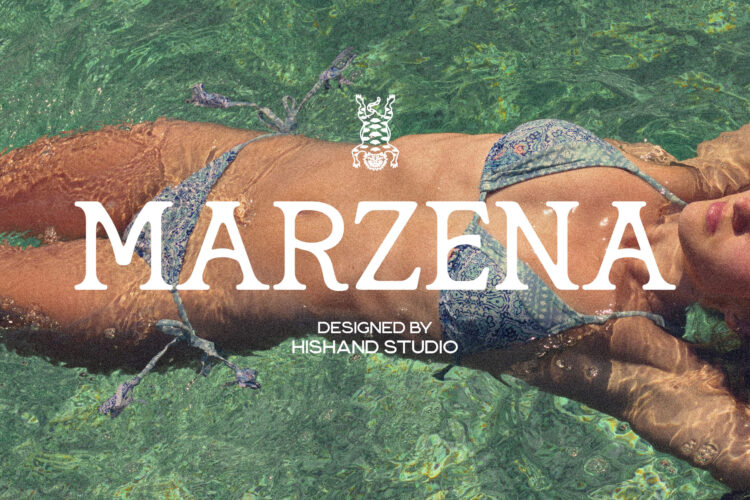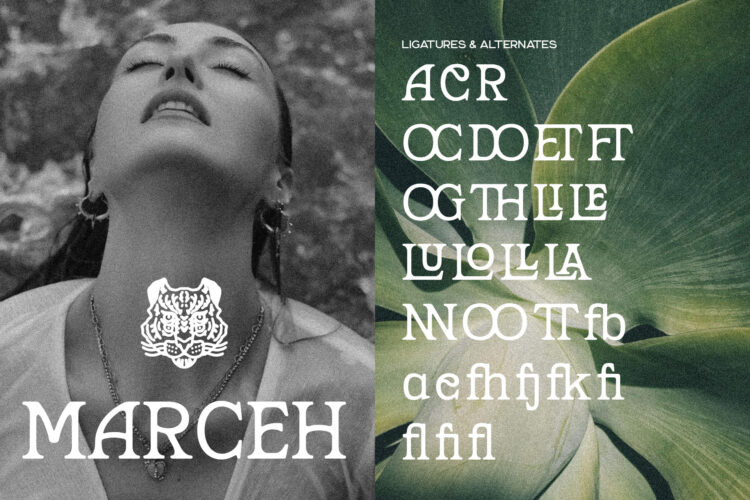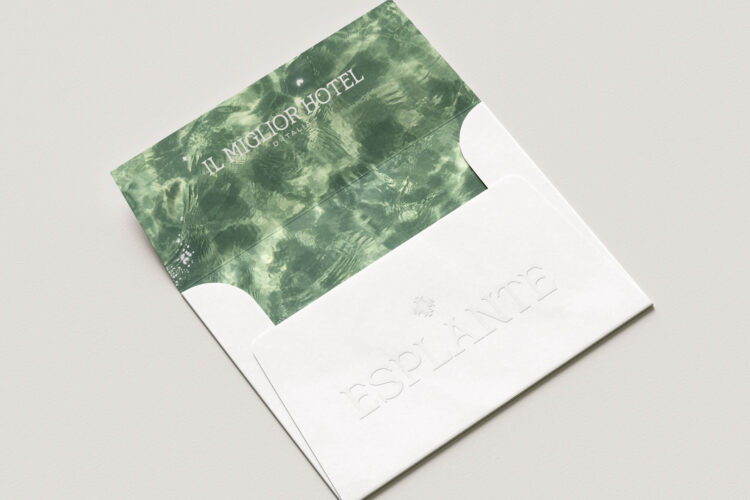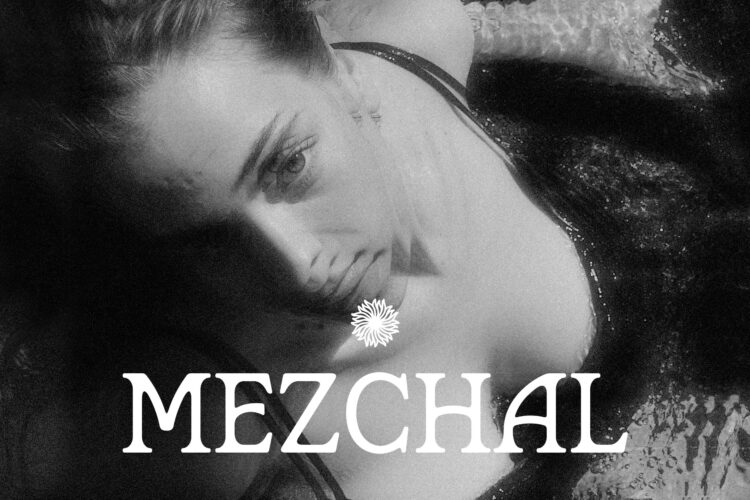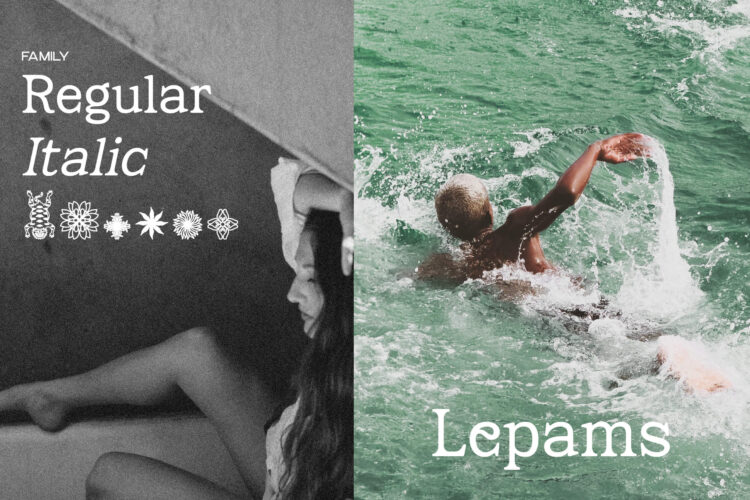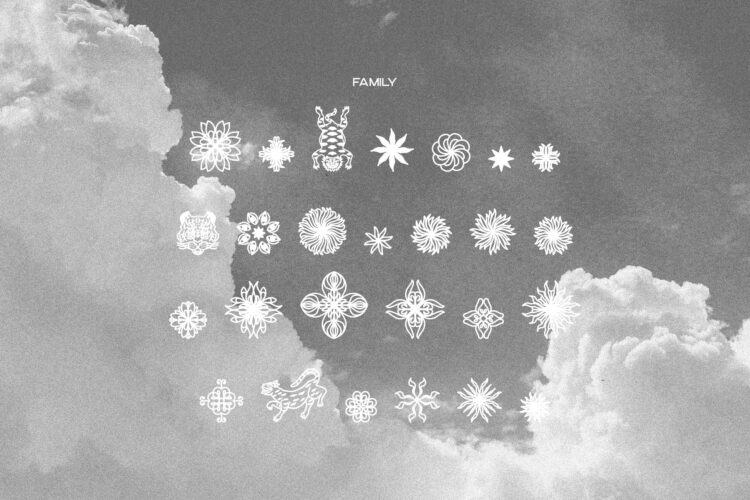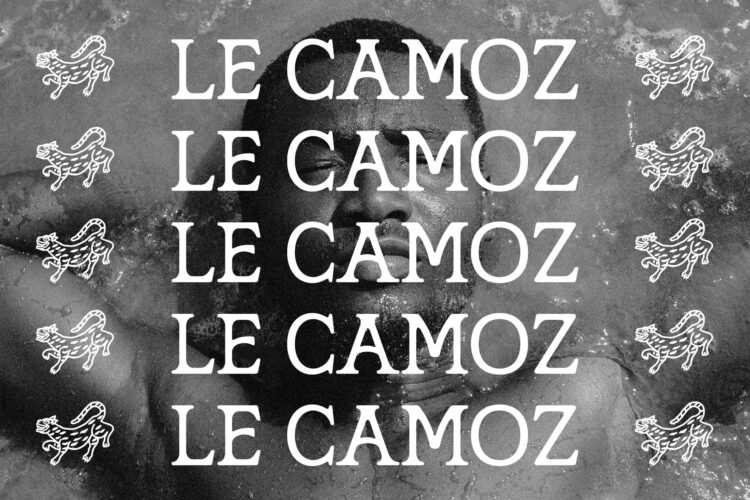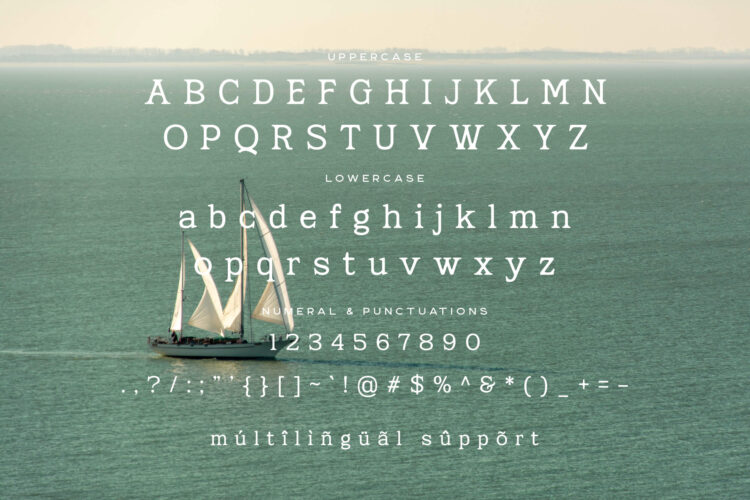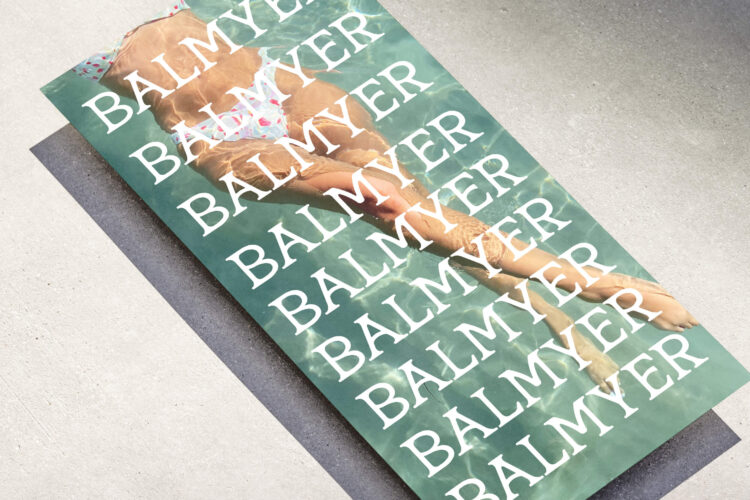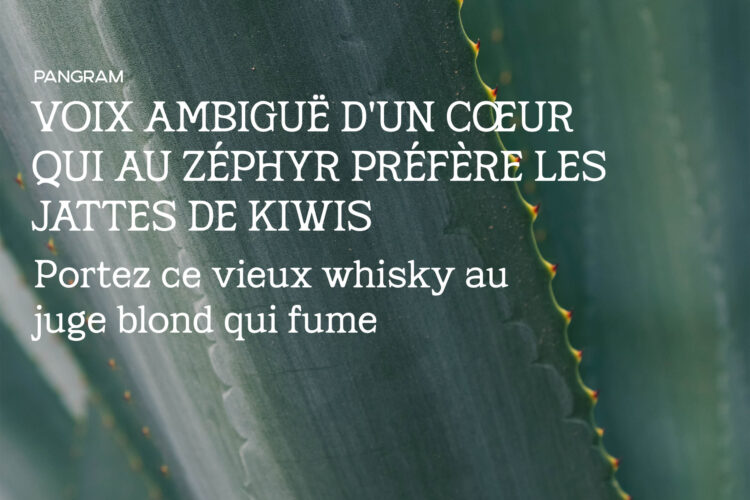
Marzena is a display serif with bold character and vintage charm. Sturdy, condensed letterforms with high contrast and decorative flourishes give it a handcrafted feel, built for labels, signage, and branding that wants a retro, artisanal edge. Think spirits packaging, western inspired logos, and statement headlines with personality. Every letter in Marzena Display Font carries a sense of weight and confidence. The rounded slab serifs and thick strokes give it a hand carved quality, as if each character was shaped for a bottle label or an old shop sign. The high contrast between thick and thin strokes adds rhythm and presence, making it a strong choice for headlines, wordmarks, and any design that needs to command attention without losing its warmth.
This font comes with 26 aesthetic icons, hand drawn to match the typeface’s decorative spirit. From ornamental flourishes to line art symbols, these icons add texture and personality to labels, invitations, packaging, and social media graphics. They work seamlessly alongside the letterforms, extending the vintage story beyond typography and giving designers extra tools to build a complete visual identity.
Marzena suits craft beverage branding, vintage inspired packaging, and lifestyle projects looking for warmth and character. It fits naturally into western themed logos, saloon signage, coffee and spirits labels, and any project that wants a nostalgic, artisanal feel. The typeface also holds up well in editorial headlines and poster designs, where its bold structure and decorative details can stand on their own.
Whether paired with a clean sans serif body text or used alone across a full layout, Marzena Display Font brings texture and history to modern design work. Its blend of boldness, decorative detail, and old world charm makes it a versatile choice for designers who want their branding to feel authentic and lived in.
With a complete character set and a matching icon collection, Marzena offers everything needed to build a cohesive, vintage inspired identity from a single typeface family.